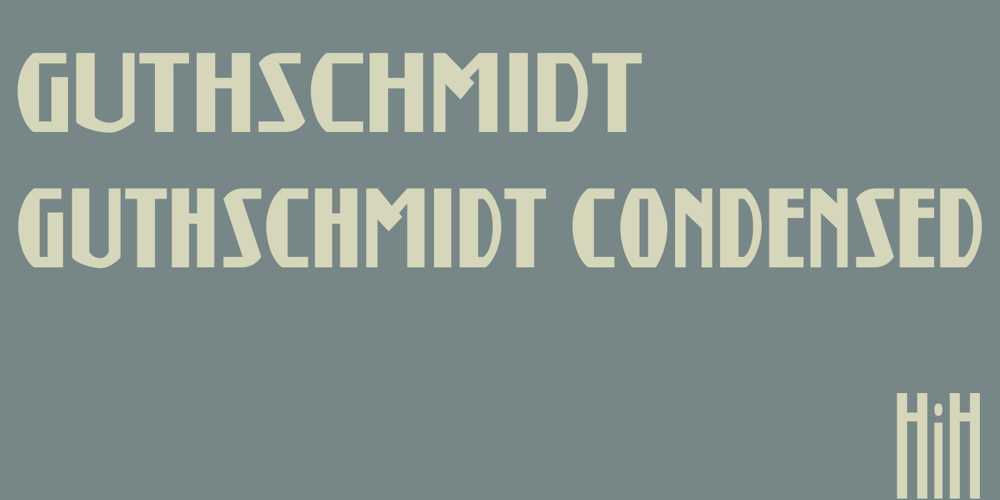
Guthschmidt
Guthschmidt font
Guthschmidt Font Family was designed by Anthonius Guthschmidt and published by HiH. Guthschmidt contains 2 styles and family package options. Guthschmidt and Guthschmidt Condensed are based on a 1924 KLM Royal Dutch Airline poster that was designed by THE Dutch commercial artist Anthonius Guthschmidt (born Haarlem 1887, died Leiden 1958). The poster draws on the imagery of the legend The Flying Dutchman. Our gallery image is a reconstruction of the original poster, but using our fonts. Extras include: CH (123), CK (125), AW (135), AY (137) and IJ (172) and an alternative reversed V (094) from the original poster. All caps. Guthschmidt and Guthschmidt Condensed are distinctive and provide a strong presence on the page. Buy both together and save.